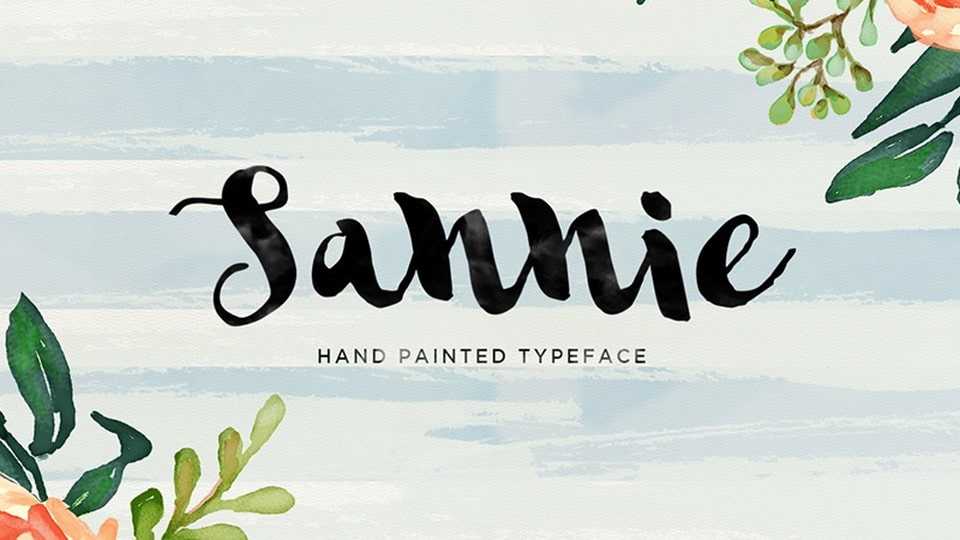
Download Sannie font, a playful and lovely hand pained brush typeface. This versatile script font has a wide range of applications ranging from greeting cards to birthday crafts.